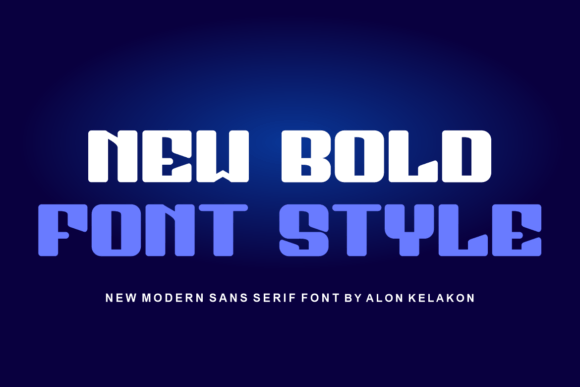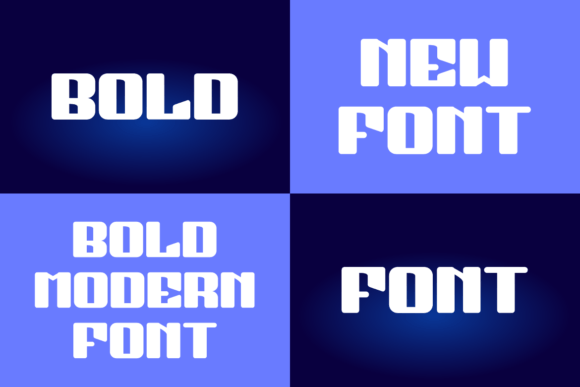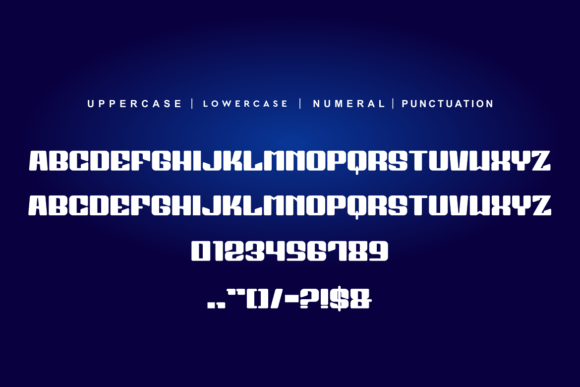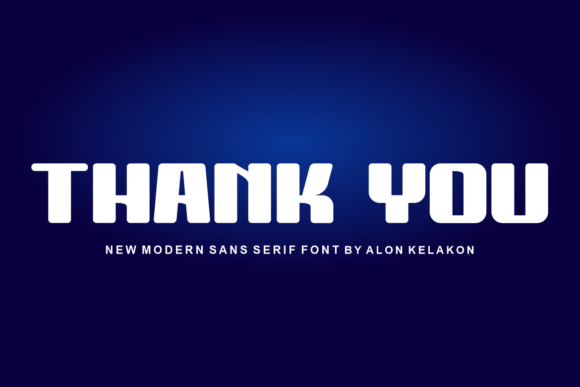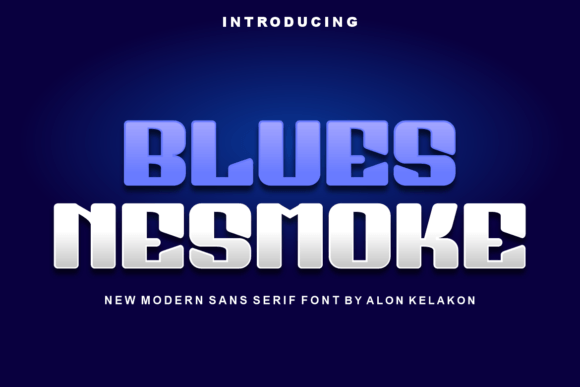
The Blues Nesmoke Font: A Cool and Assertive Sans Serif for Your Creative Projects
Have you ever been in the middle of a design project, and suddenly, you’re stuck on finding the perfect font? I recall a recent experience where I was working on a branding project for a trendy coffee shop. The client wanted a font that was both cool and assertive, yet still had a casual touch. After hours of searching, I stumbled upon the Blues Nesmoke font, and it was love at first sight! In this article, I’ll share my honest review, a practical guide on how to use it, and some valuable insights into this amazing font.
- ✨ **Versatility**: Blues Nesmoke is a sans serif font that can be used for a wide range of projects, from branding and advertising to packaging and digital media.
- ✅ **Readability**: The font has a clear and clean design, making it easy to read even at small sizes.
- 💡 **Personality**: Blues Nesmoke has a unique personality that adds a touch of coolness and assertiveness to any design.
While Blues Nesmoke is an excellent font, there are a few minor quirks to be aware of:
- 🤔 **Limited language support**: Blues Nesmoke may not support all languages, so it’s essential to check the font’s specifications before using it for a project.
- ⚠️ **Glyph limitations**: Some users have reported that the font’s glyph set is not as extensive as they would like. However, this can be mitigated by using OpenType features and stylistic alternates.
The Backstory of Blues Nesmoke
Blues Nesmoke was designed by a team of typographers who wanted to create a font that was both cool and assertive, yet still had a casual touch. The design process involved experimenting with different geometric shapes and letterforms to create a unique and memorable font. While the designer’s identity remains anonymous, their passion for typography and design is evident in the final product.
A: Yes, Blues Nesmoke is an excellent choice for branding and advertising projects. Its unique personality and versatility make it suitable for a wide range of applications.
Q: Is Blues Nesmoke suitable for body text?
A: While Blues Nesmoke is a clear and readable font, it may not be the best choice for body text due to its sans serif design. However, it can be used for body text in certain contexts, such as in digital media or advertising.
Q: Can I use Blues Nesmoke for packaging design?
A: Yes, Blues Nesmoke can be used for packaging design. Its bold and assertive personality makes it an excellent choice for product labels and packaging materials.